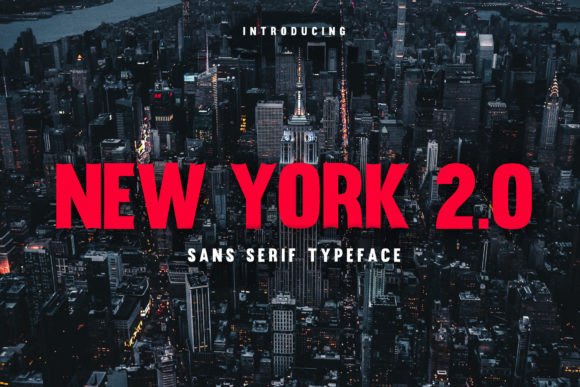
New York 2.0 Font Download Premium Font: Every now and then, a typeface comes along that feels both modern and timeless — a font that can slide effortlessly into nearly any project and still stand out. New York 2.0 Font is exactly that kind of typeface: a cool, clean, and sophisticated sans serif that adds a sleek edge to anything you design.
Whether you’re designing a minimalist logo, a polished social media banner, or a bold magazine headline, New York 2.0 brings a balanced mix of elegance and strength. It feels fresh and urban but never tries too hard, which makes it an ideal choice for creative professionals, brands, and designers who value versatility.
What Makes New York 2.0 Font Special?
✨ Modern Minimalism
With its sleek, geometric shapes and clean lines, New York 2.0 embraces the minimalist design trend that remains popular across branding, editorial, and web design.
🖋 Versatile Personality
This isn’t a niche display font — it works beautifully across a range of projects, from bold titles to subtle branding marks.
🌆 Urban Elegance
As the name suggests, New York 2.0 feels distinctly urban: confident, contemporary, and stylish — like sleek architecture turned into typography.
⚡ Easy to Read
Its clean sans serif form ensures it stays highly legible even in smaller sizes, making it suitable for everything from mobile apps to large posters.
💡 Design Flexibility
Pairs easily with serif fonts, scripts, or decorative type, giving you endless combinations to explore.
Best Uses for New York 2.0 Font
Because it balances personality with simplicity, New York 2.0 fits into nearly every modern design niche:
✅ Logos & Branding – Perfect for fashion brands, tech startups, and creative agencies wanting a stylish yet professional look.
✅ Editorial Design – Magazine titles, pull quotes, and headlines that need modern sophistication.
✅ Social Media Graphics – Instagram stories, Facebook banners, or Pinterest pins with clean, bold text.
✅ Website Headers & UI – Crisp typography for landing pages, menus, and product showcases.
✅ Product Packaging – Especially cosmetics, perfumes, or minimalist lifestyle brands.
✅ Event Promotions – Flyers, posters, and invites for modern events or exhibitions.
New York 2.0 is the kind of font you can trust to elevate your design without overpowering it.
Why Designers Love New York 2.0 Font
🌟 Effortlessly Stylish: Instantly adds a contemporary, upscale vibe to designs.
🧩 Pairs Beautifully: Works with scripts, serifs, or decorative type.
📐 Minimalist Yet Memorable: Avoids feeling generic thanks to refined letter shapes.
🖌 Universal Appeal: Looks great on business cards, digital ads, packaging, and more.
Tips for Designing with New York 2.0 Font
✅ Use in Large Sizes: Showcase the crisp geometry in titles, hero sections, or packaging.
📏 Play with Spacing: Adjust letter spacing (tracking) for extra modern feel.
🌈 Keep Colors Minimal: Black, white, gold, or muted pastels enhance the font’s sophistication.
🎨 Pair Thoughtfully: Combine with a classic serif (like Playfair Display) for editorial style, or a handwritten script for balance.
🧪 Experiment: Try bold, outline, or all-caps styles to match your brand personality.
Creative Ideas to Try
💼 Logo for a Creative Agency: Combine the font’s modern lines with a geometric icon.
📱 Instagram Quote Template: “New York state of mind” in large, spaced-out caps.
🖋 Magazine Cover Title: Elegant yet bold look that commands attention.
Final Thoughts: Upgrade Your Designs with Urban Elegance
New York 2.0 Font isn’t just another sans serif — it’s an urban-inspired design tool that adds sophistication and modern flair to anything you create. Its clean lines, versatile character, and balanced proportions make it perfect for brands, editorial work, packaging, and digital graphics alike.